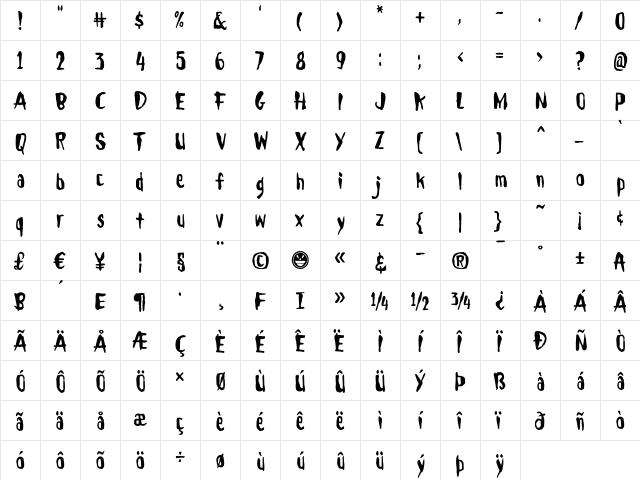
Droeming Regular
Design Context for Droeming Typeface
Droeming is a composed and adaptable typeface that performs quietly and consistently across a wide range of design contexts.